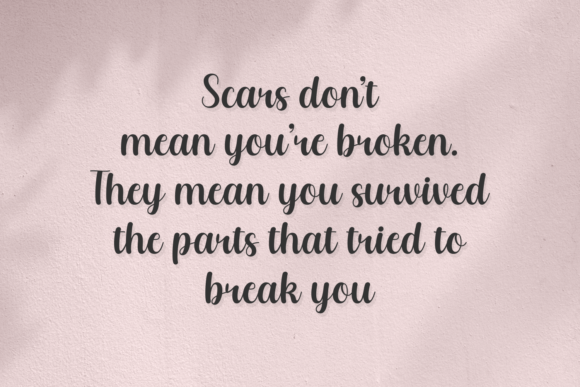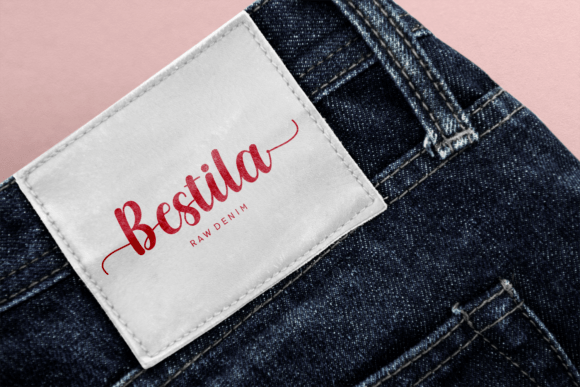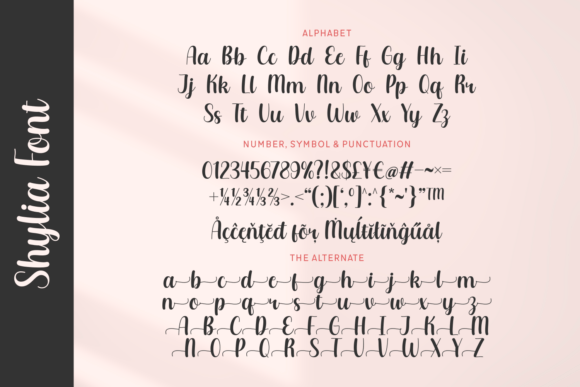
Introduction to Shylia Font
Shylia is a clean and classy script font with a friendly personality and elegant swashes at both ends.
Its soft curves and casual strokes make it ideal for branding, blog titles, social media, and handmade product labels Whether youโre crafting something delicate or modern, Shylia adds a lovely, approachable flair.
Key Features of Shylia Font